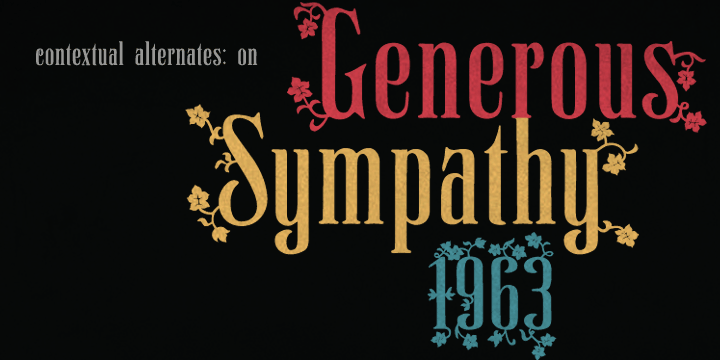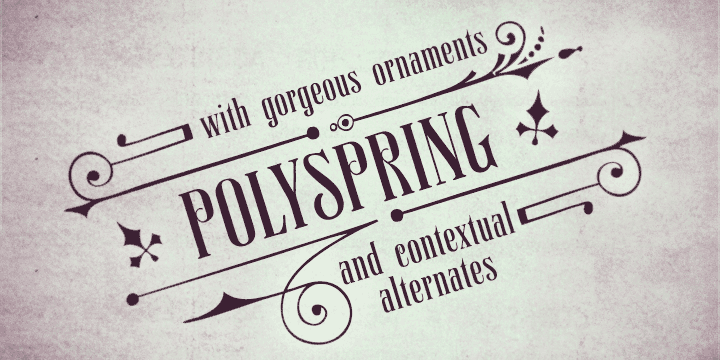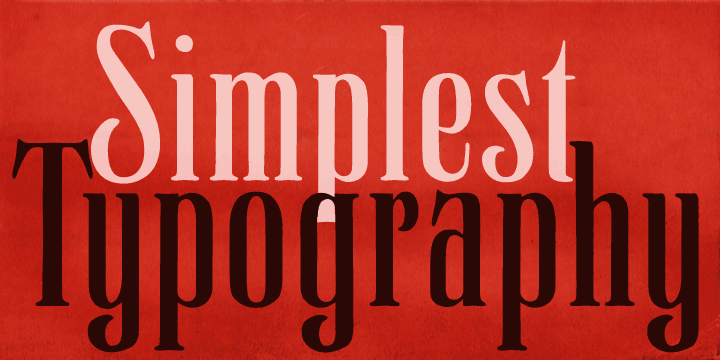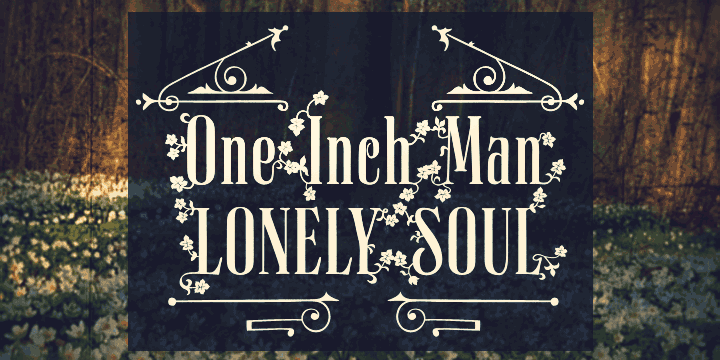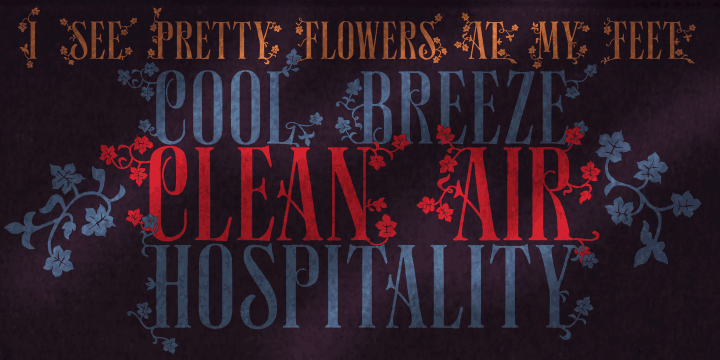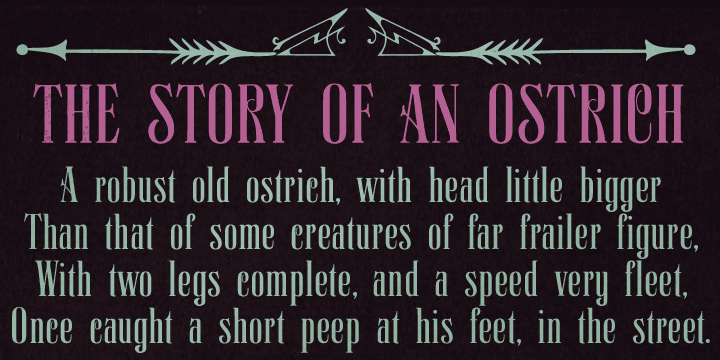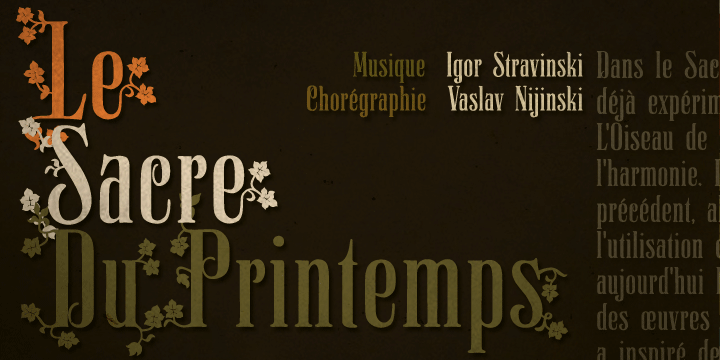
About the Polyspring Font
About Polyspring Font Family Polyspring is a handcrafted serif display font, with a cool flowery flair.It was hand-drawn based on Italia Condensed typeface from Keystone Foundry from circa 1906. Loaded with stylish ornaments and flourishing alternates for all its letters and numbers, this font is a terrific toolbox for display purposes. Yet, it has the superpower of changing the first and last letters in words to its germinated alternates at the click of a button, thanks to the smart OpenType programming.